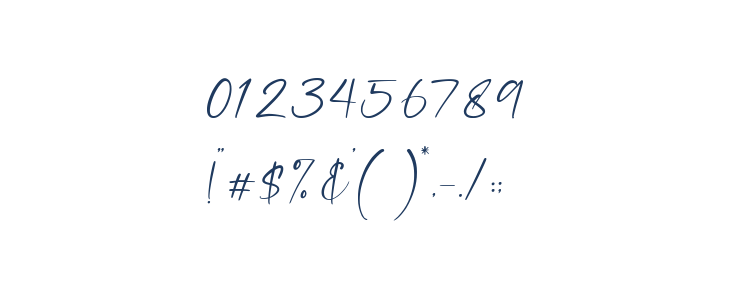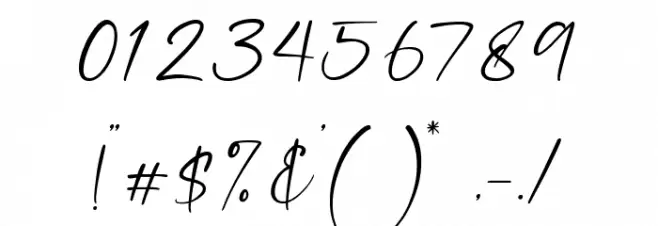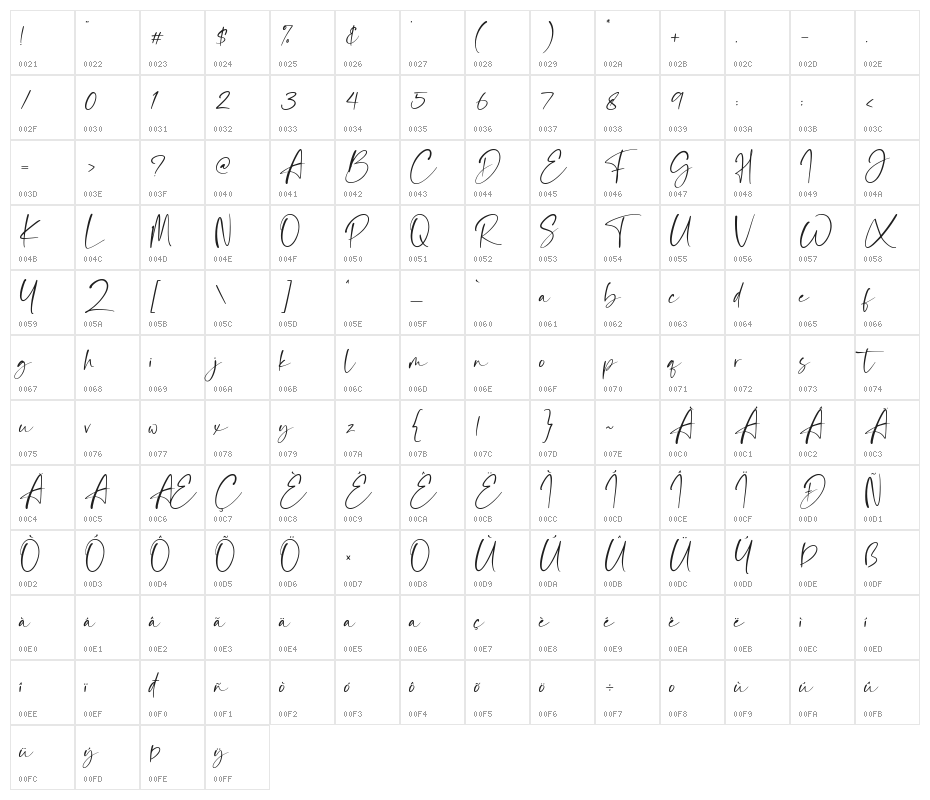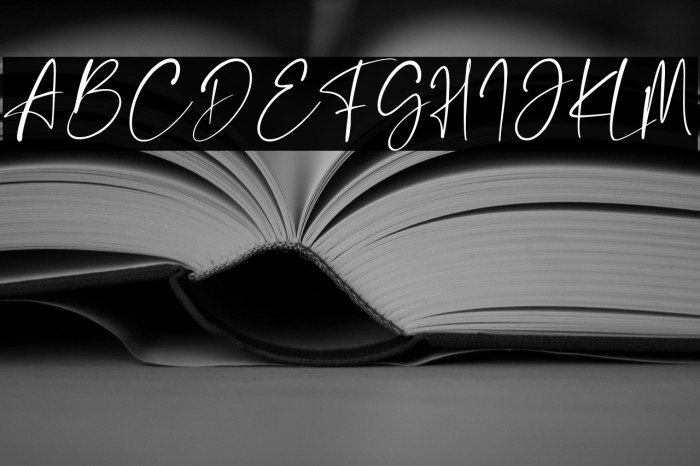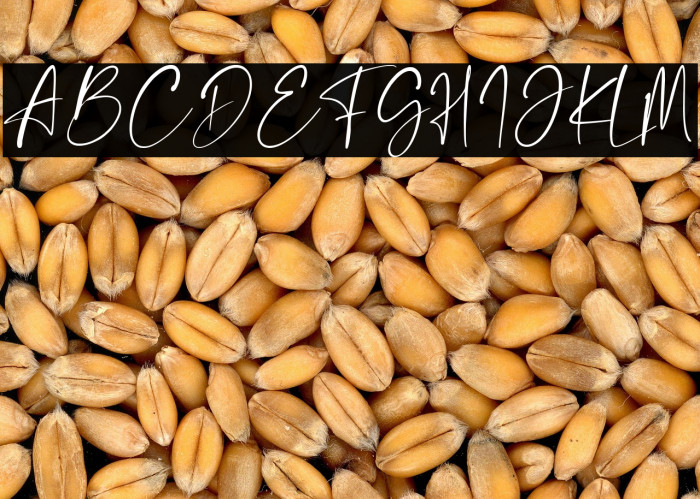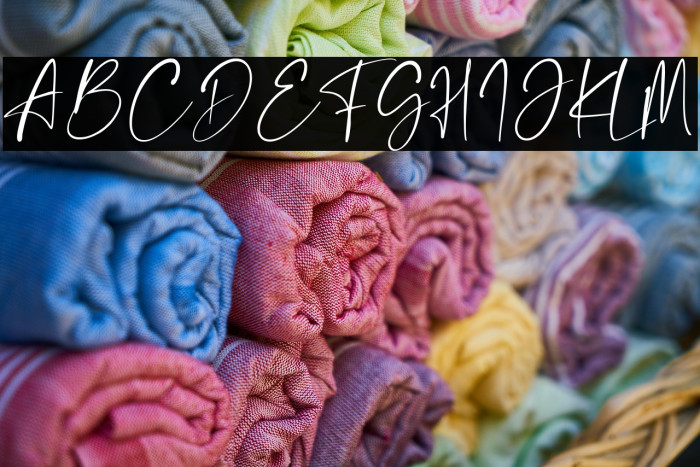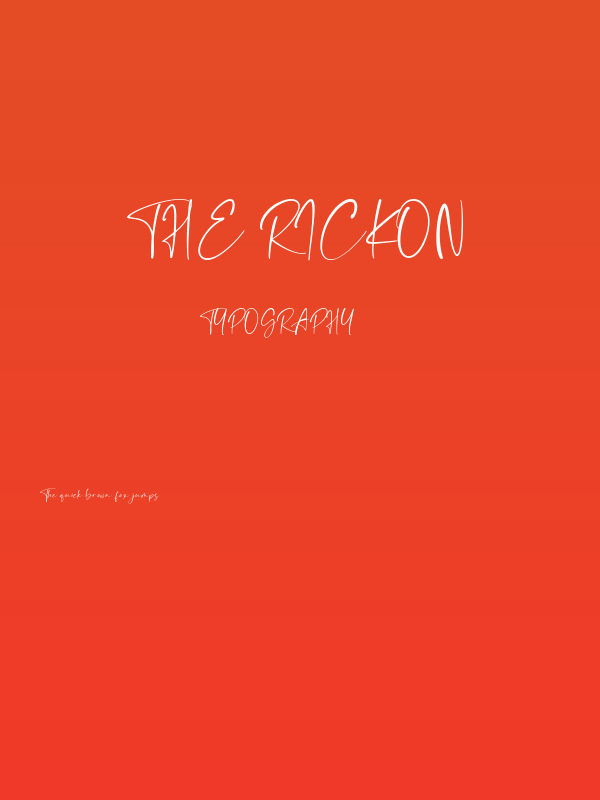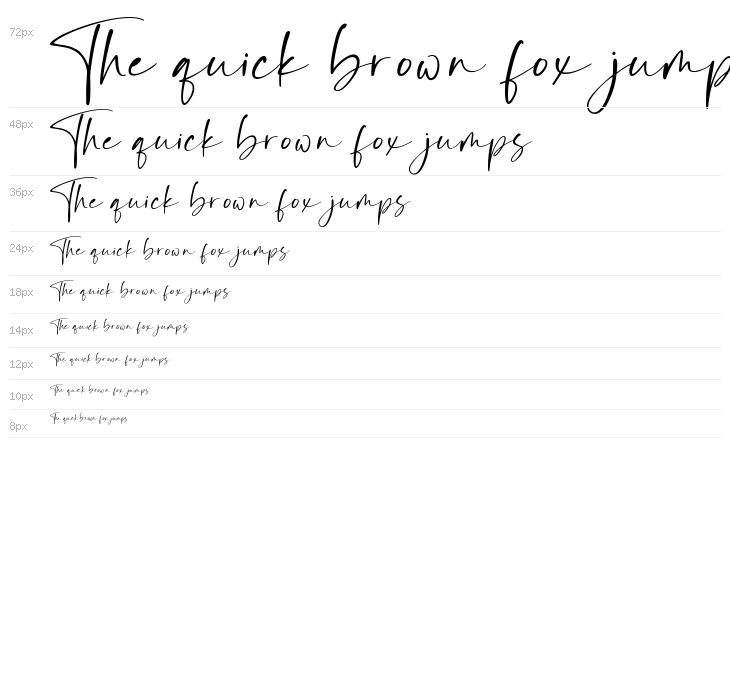
The Rickon Font
The Rickon Description
This font exudes a lively and expressive handwritten style, characterized by its fluid and dynamic strokes. The uppercase letters are bold and sweeping, with a playful yet elegant flair. The lowercase letters maintain a consistent flow, enhancing readability while adding a personal touch. Numbers and special characters follow the same energetic style, making them stand out. The overall appearance is both artistic and approachable, perfect for projects that require a personal or creative touch.
| Proposed Projects | Ideal for wedding invitations, greeting cards, branding projects, and social media graphics. |